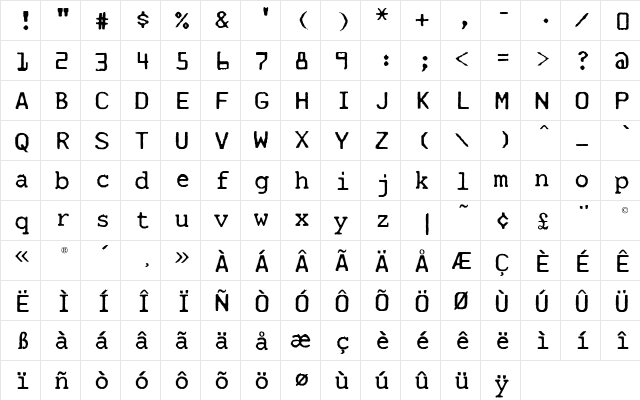
Mainframe-RD Two Lino Regular
Design Context for Mainframe-RD Two Lino Typeface
Mainframe-RD Two Lino is a composed and adaptable typeface that performs quietly and consistently across a wide range of design contexts.